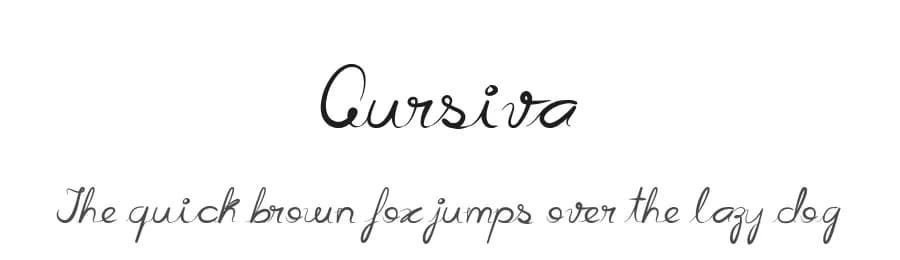
About Cursiva Font
Cursiva is a script & handwritten font designed by Danilo Miguel. It includes 157 glyphs, a regular weight, OTF (CFF) format, and 154 languages. Cursiva is free to download; check the license details on this page before commercial use. Script & handwritten fonts like Cursiva work best for wedding invitations, greeting cards, signatures, and elegant branding.
Cursiva Font is a script font that shines as a display or heading face. Pair it with a clean sans-serif or serif font for body text β the contrast creates a clear hierarchy while the two styles stay balanced and easy to read.
Cursiva Font is a script handwritten typeface by Danilo Miguel, ideal for logos, invitations, branding, and creative projects.